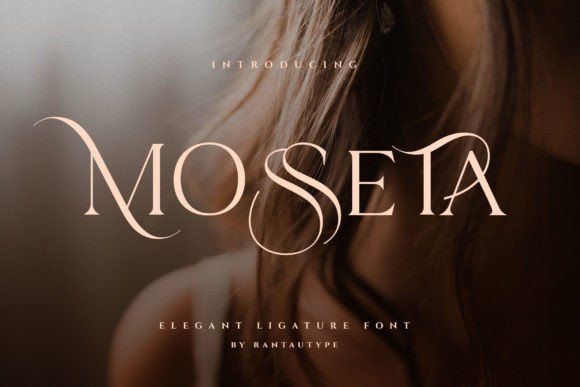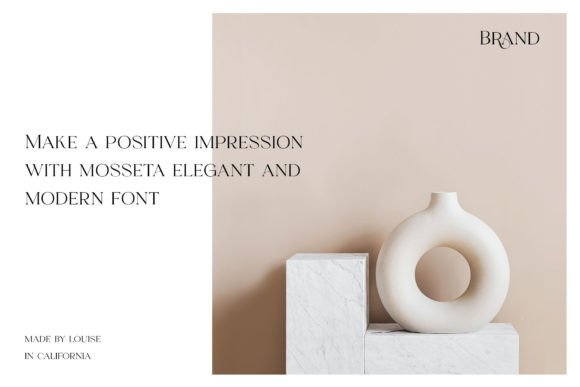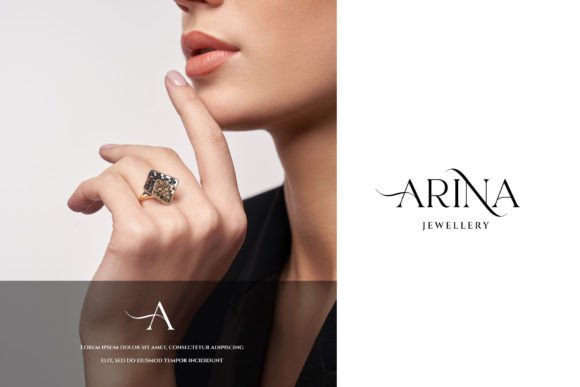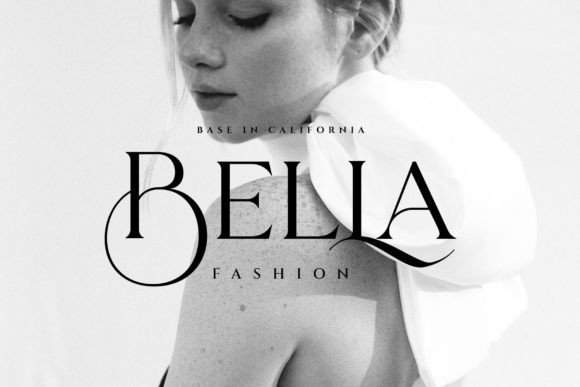
Mosseta Font: Elegant Serif Typography for Modern Logo Design
About the Mosseta Font
Elevate your designs with Mosseta Font, a font that combines sophistication with readability. Mosseta is an elegant serif font, that features a very delicate and classy look. Not too thin and not too thick, balanced and varied, Mosseta was designed to enhance the beauty of your projects.
Mosseta’s elegant serif design excels in applications requiring sophistication and readability at larger sizes. It is ideally suited for headlines, logos, short text blocks in branding materials, and even high-end packaging where a touch of classic refinement is desired. Avoid using Mosseta for extended body copy or UI elements; its delicate strokes may prove less legible in smaller sizes or continuous text.
Pairing Mosseta effectively depends on the desired impact. For a modern yet refined feel, consider pairing it with a clean sans-serif like Lato or Open Sans. To enhance its classic elegance, a complementary serif such as Garamond or a delicate script font could work well. Conversely, a geometric sans-serif like Futura could create a striking contrast, highlighting Mosseta’s graceful curves.
Mosseta projects an air of sophisticated elegance and timeless appeal. Its balanced proportions make it versatile, yet its refined details suggest luxury and high quality, making it suitable for brands and projects aiming for a premium image.